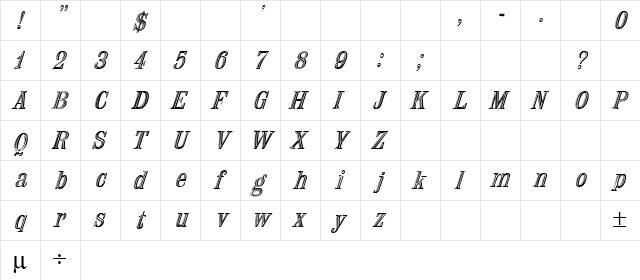
Nauert Italic
Design Context for Nauert Typeface
Nauert is a composed and adaptable typeface that performs quietly and consistently across a wide range of design contexts. Its italic angle brings a sense of urgency and motion to the letterforms.
Pro Tip: Use Nauert for emphasis, pull quotes, and subheadings where its slanted energy can add rhythm to the layout.